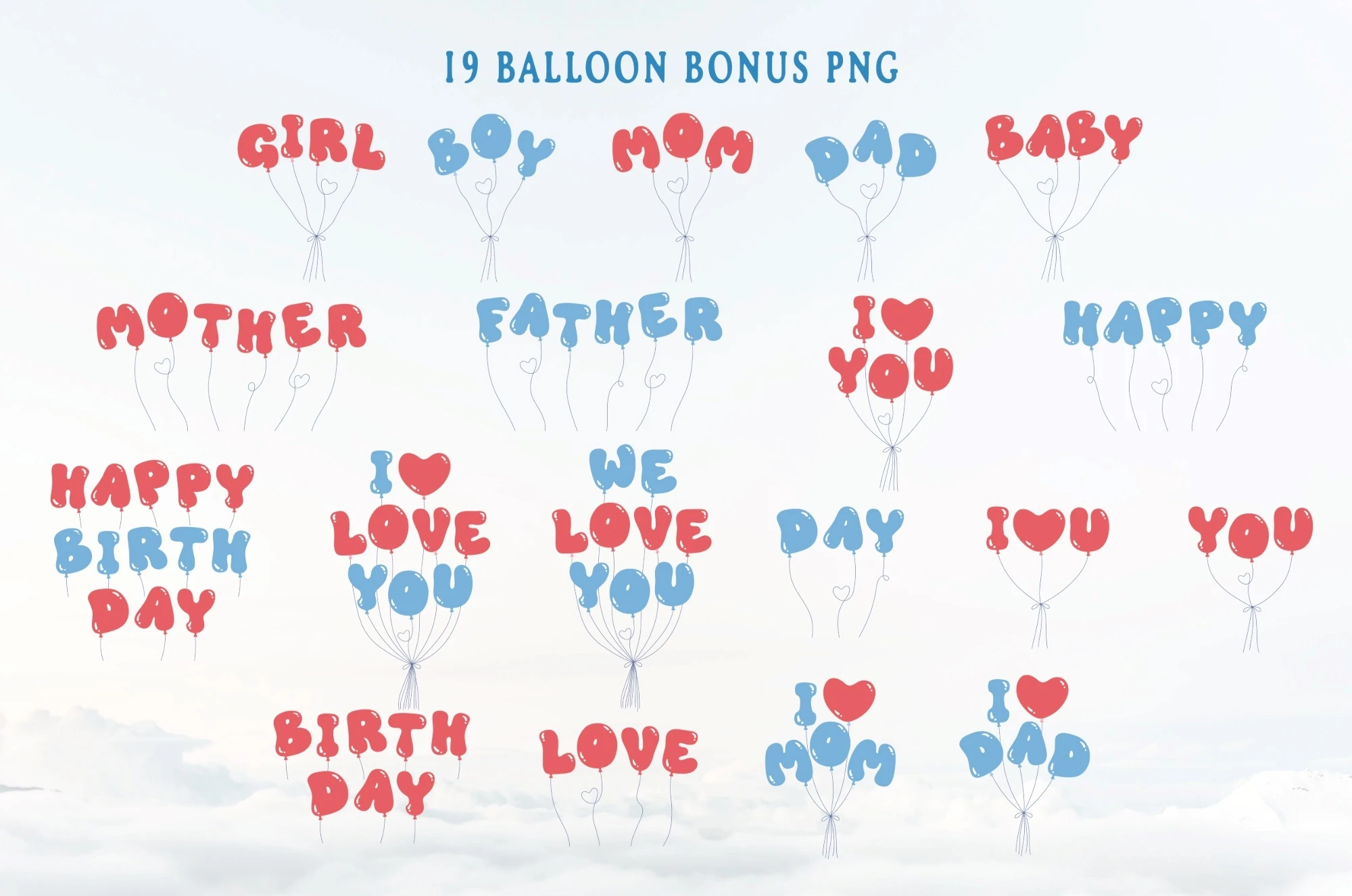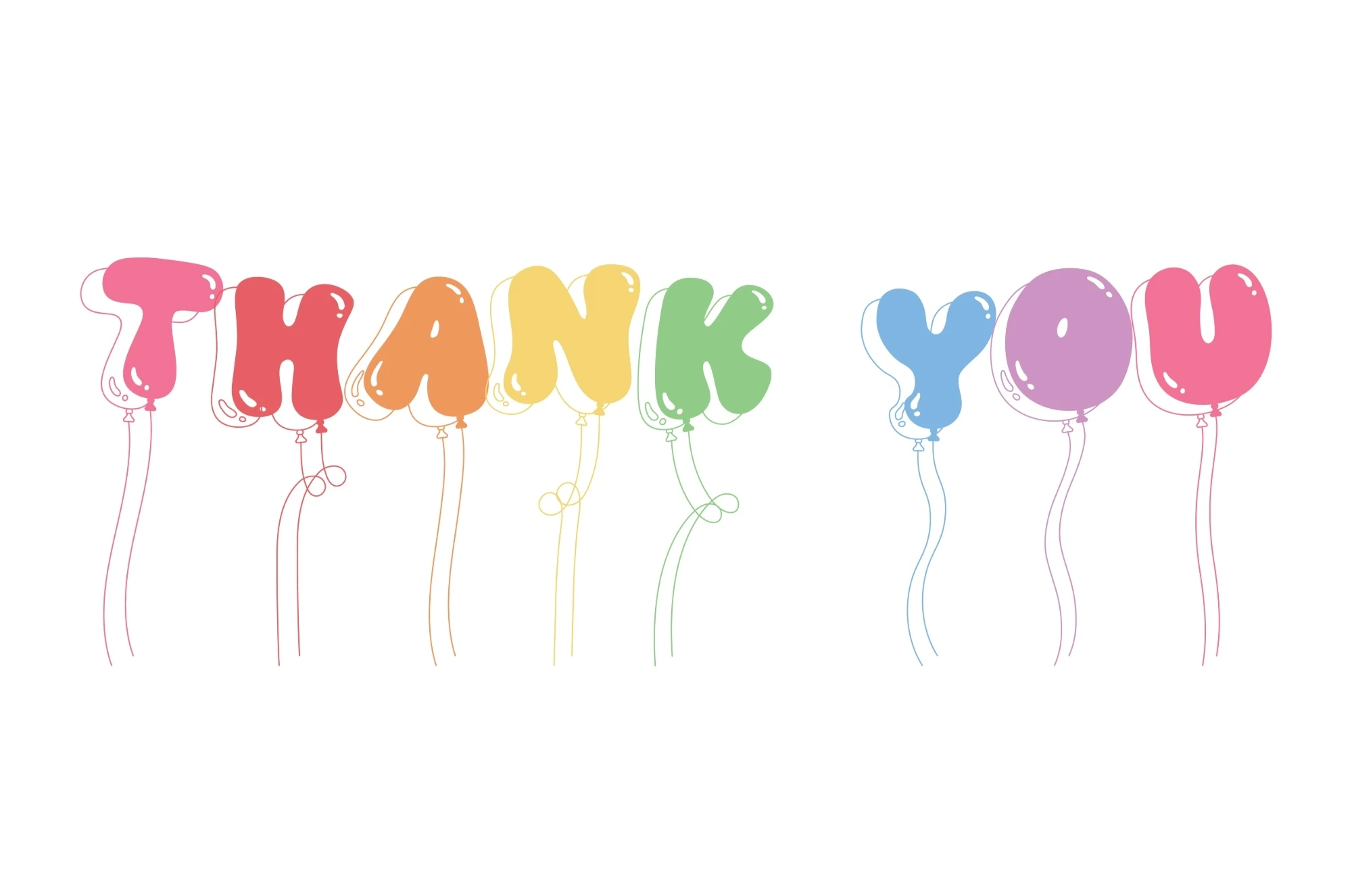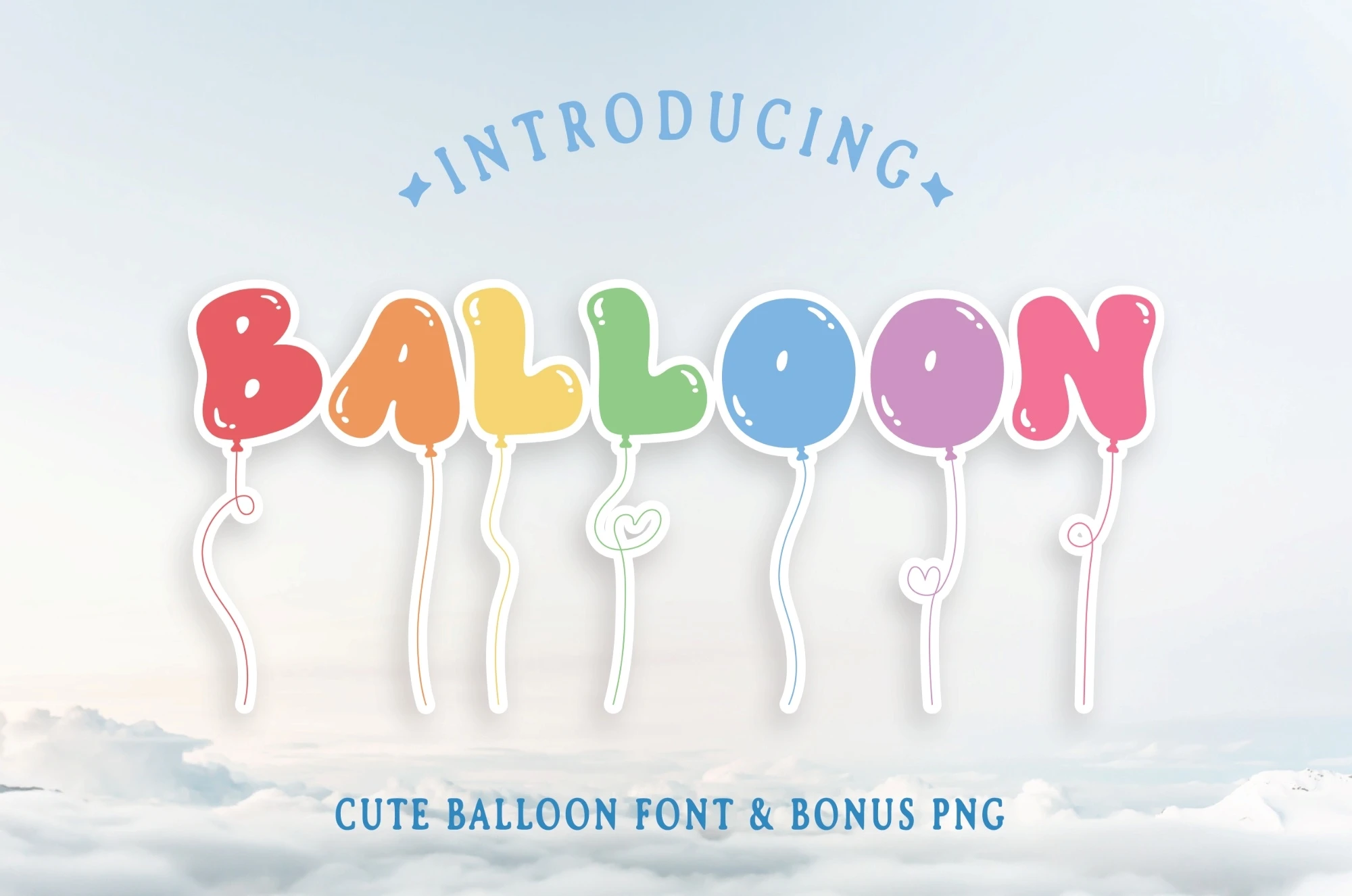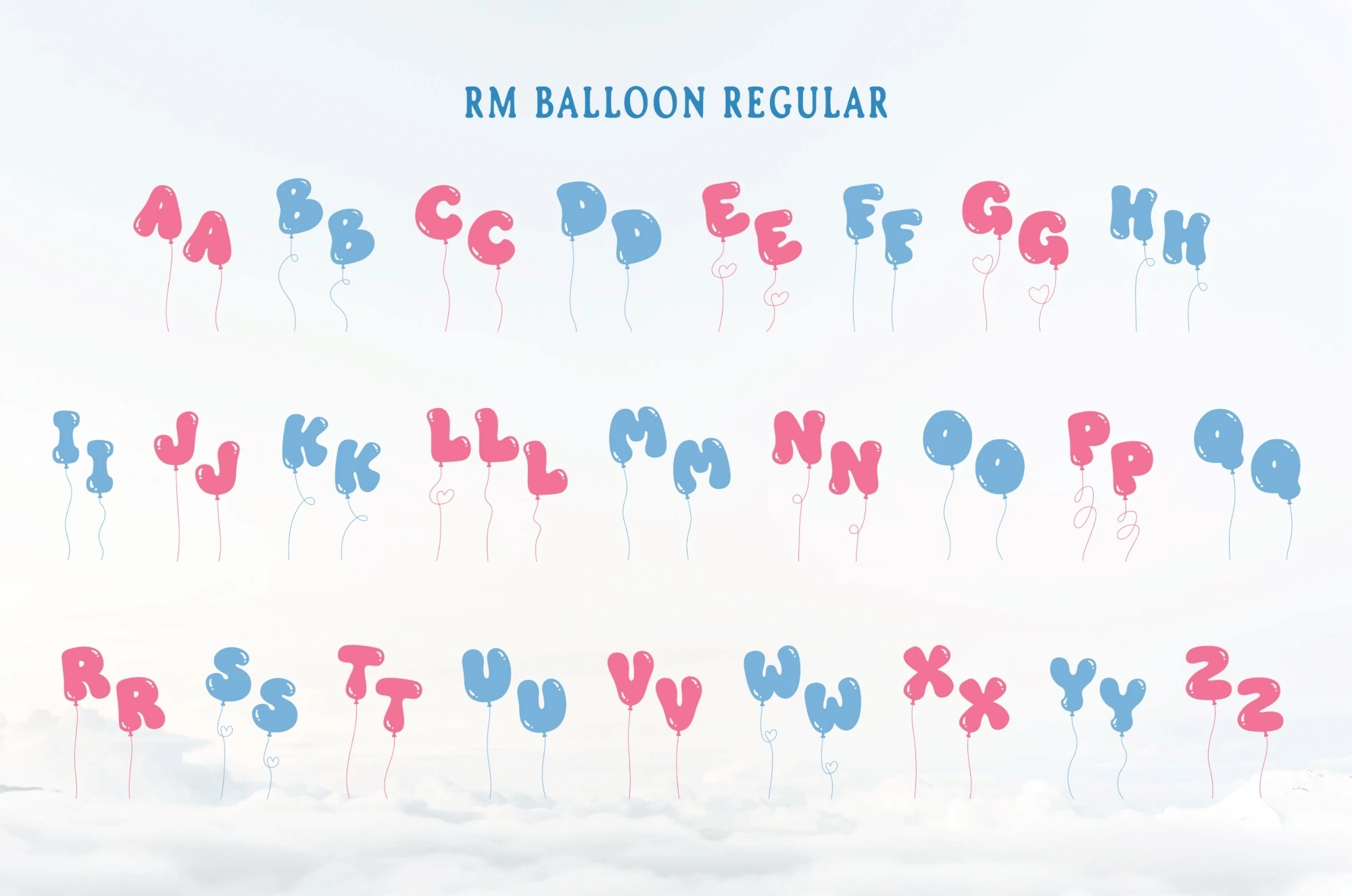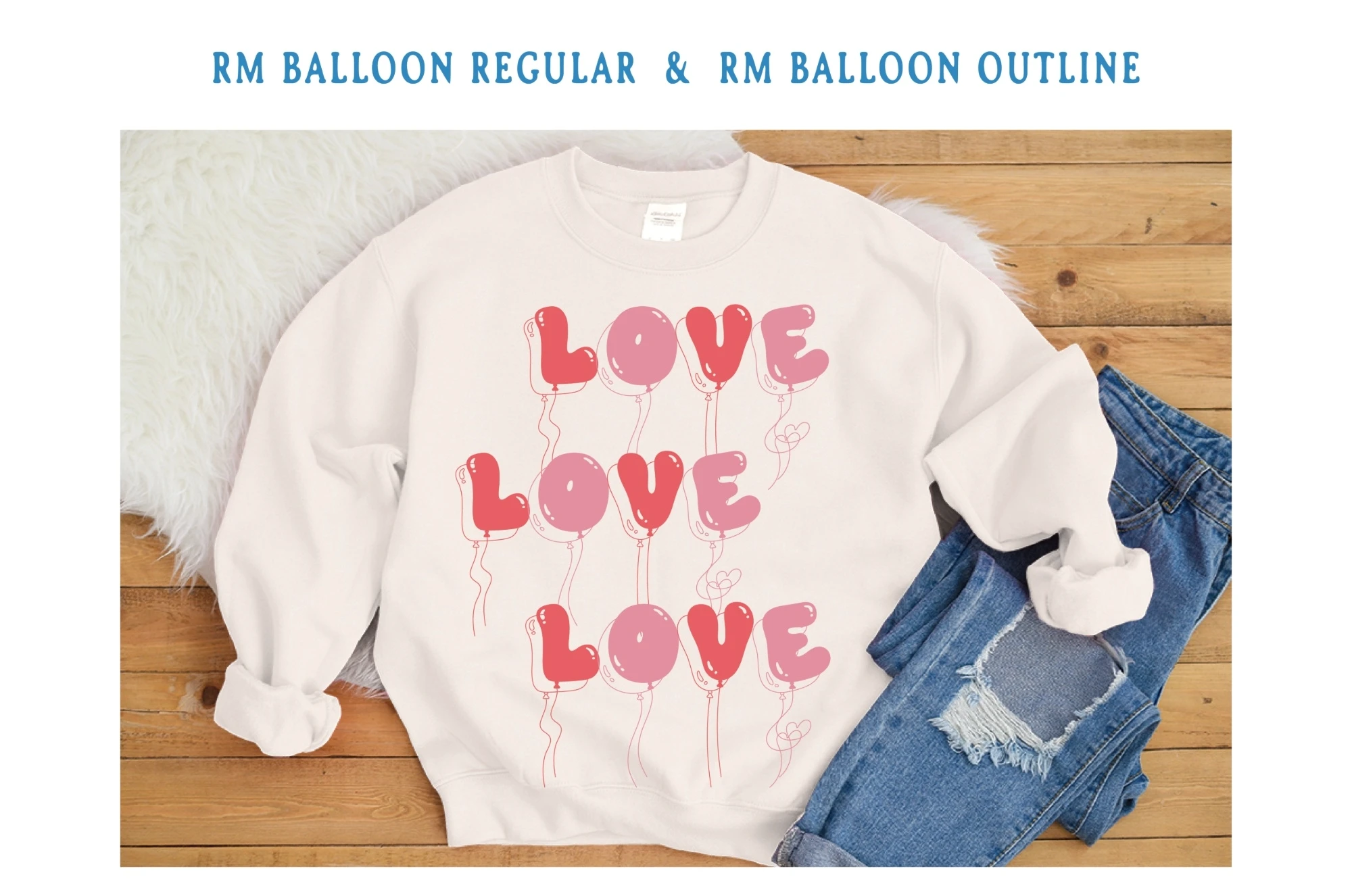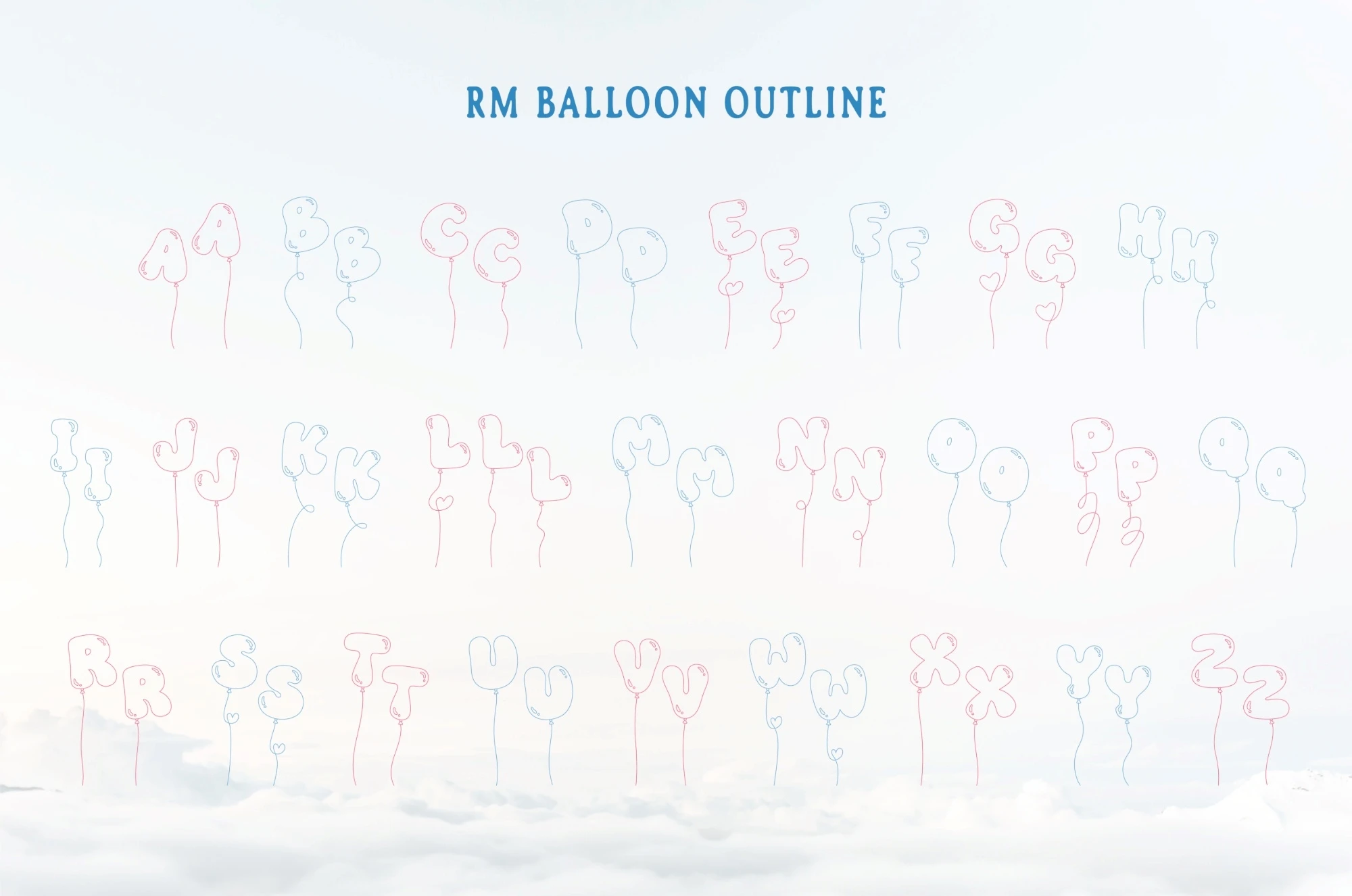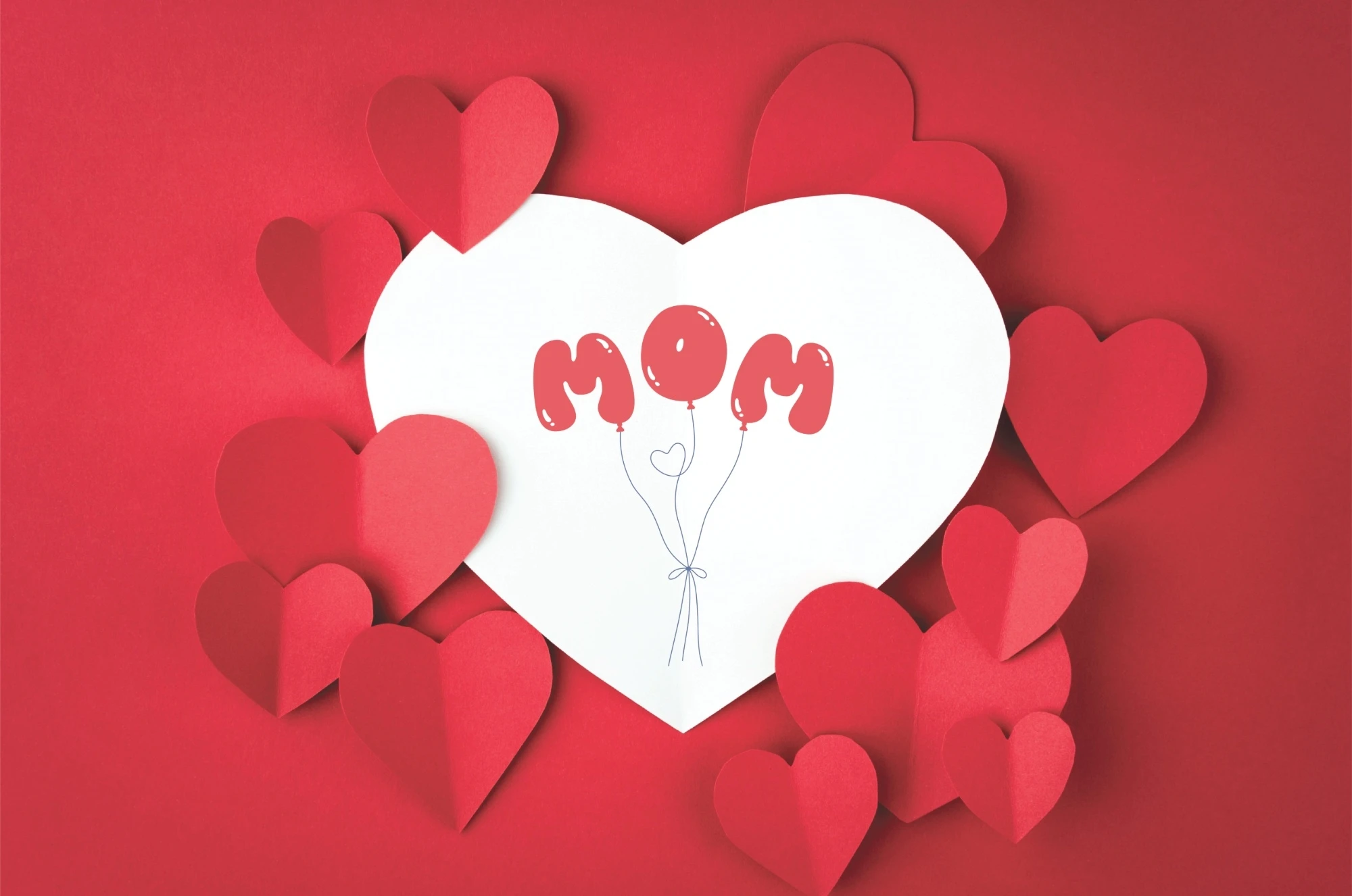
Bundle Balloon Font / 19 PNG Bonus Birthday & Valentines Day
Unleash your creativity with the Balloon Font, a delightful combination of outlined and filled lettering accompanied by an impressive selection of 19 bonus png files. Expertly crafted with an adorable, light-hearted appeal, its ideal for infusing a touch of whimsy into any kid-inspired or cute projects. Employ this versatile font to enhance your t-shirt designs, give a playful twist to your mugs, add a charming touch to your books, or make your school projects come alive in a fun and delightful way.